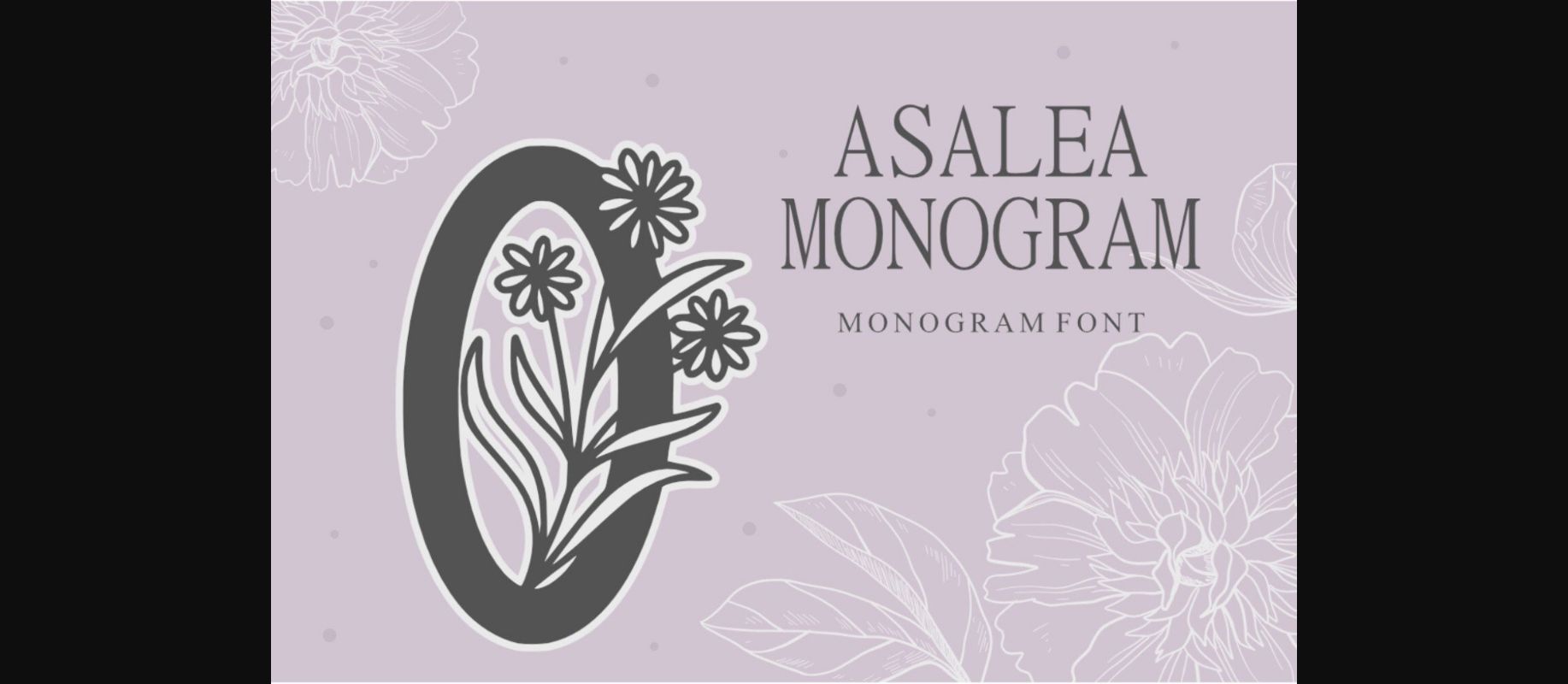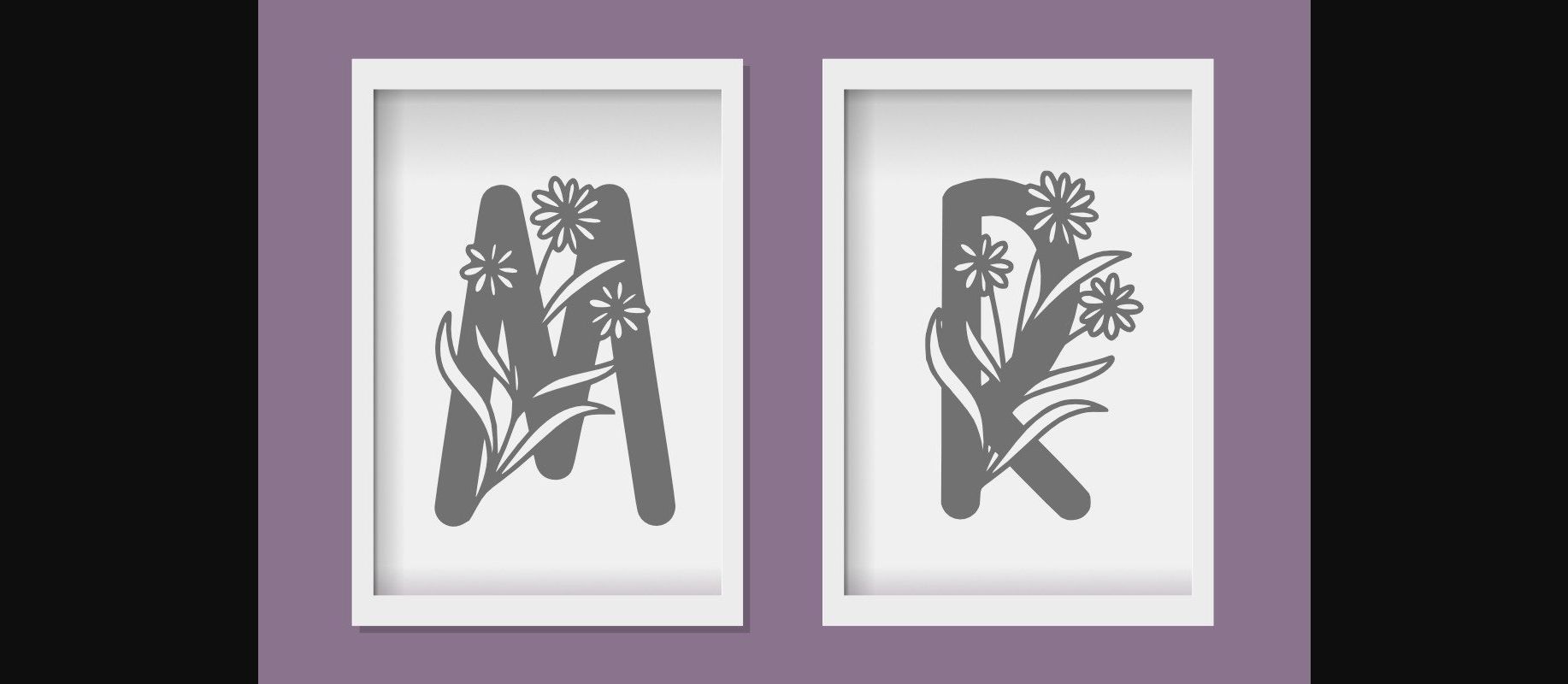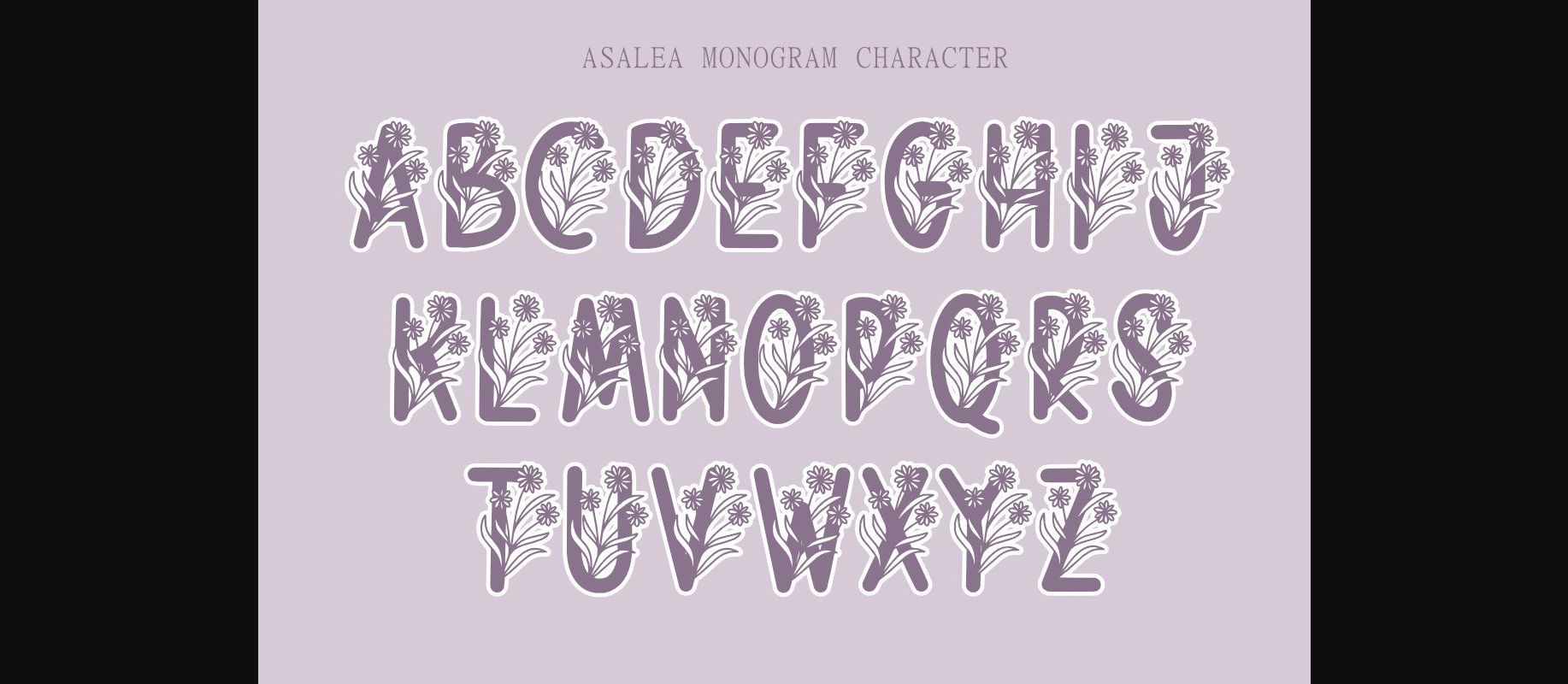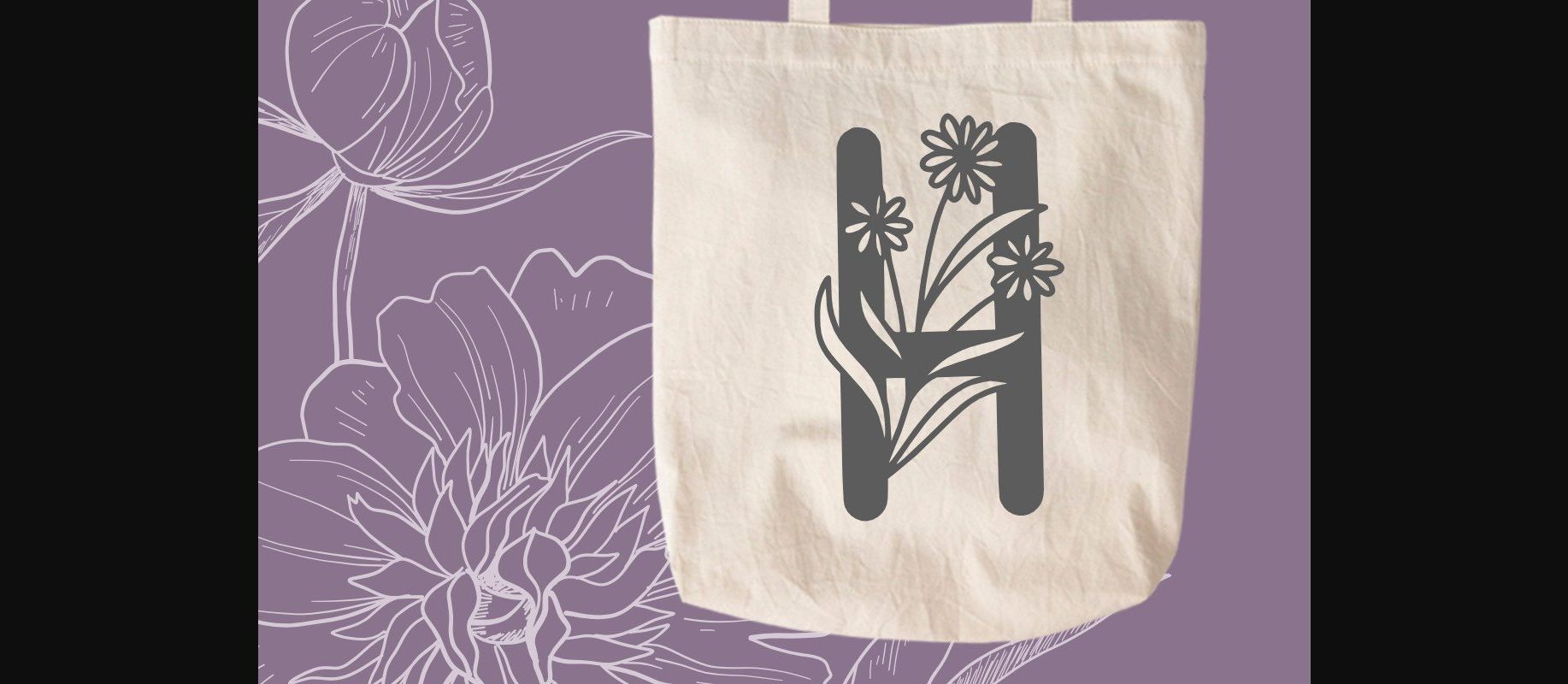
Asalea Monogram Font
About Asalea Monogram Font
Asalea Monogram is a delicate and genuine decorative font, featuring elegant flowers as ornaments. Whether you’re using it for crafting, digital designing, presentations or greeting cards making, it’s perfect!